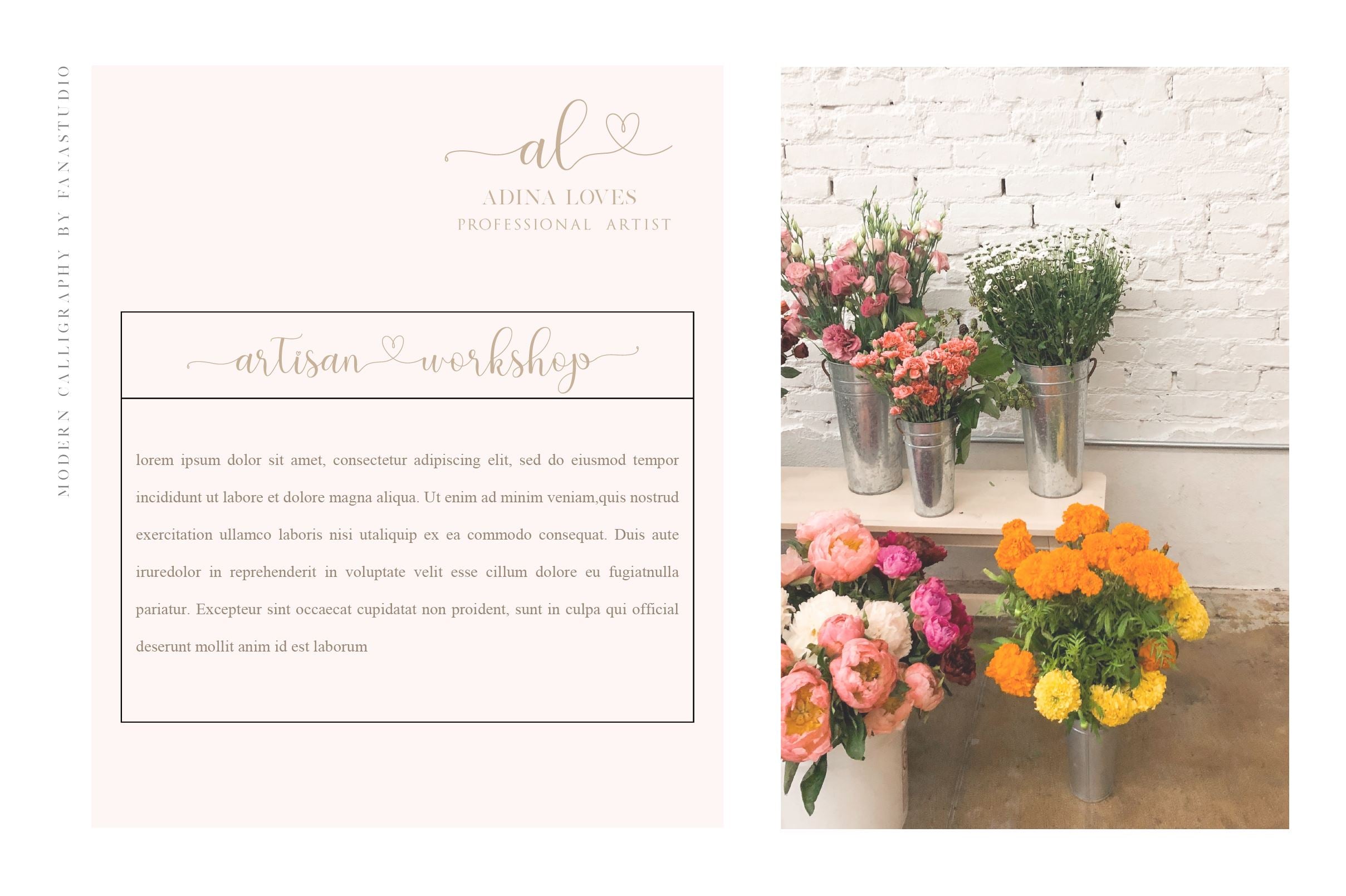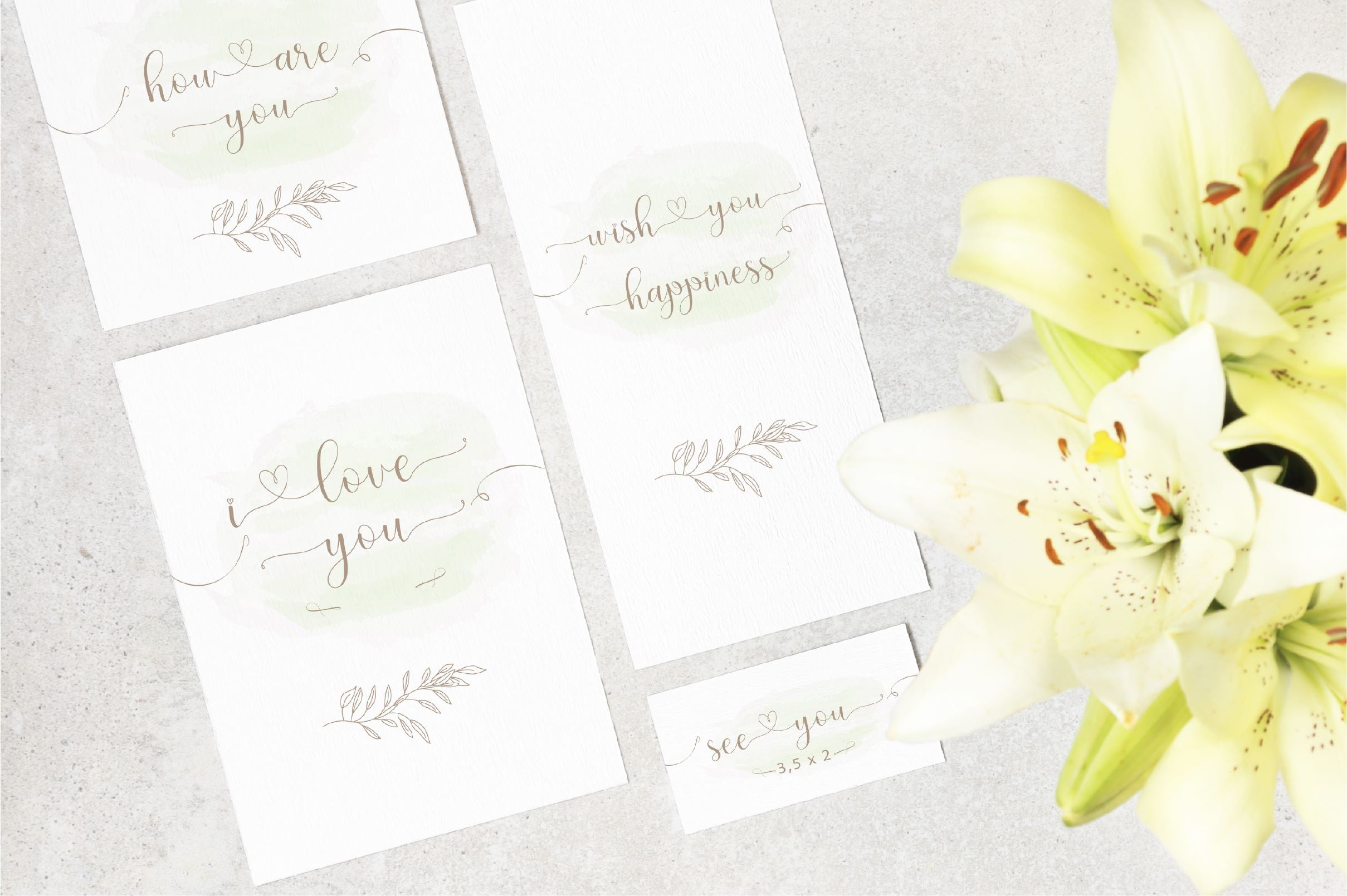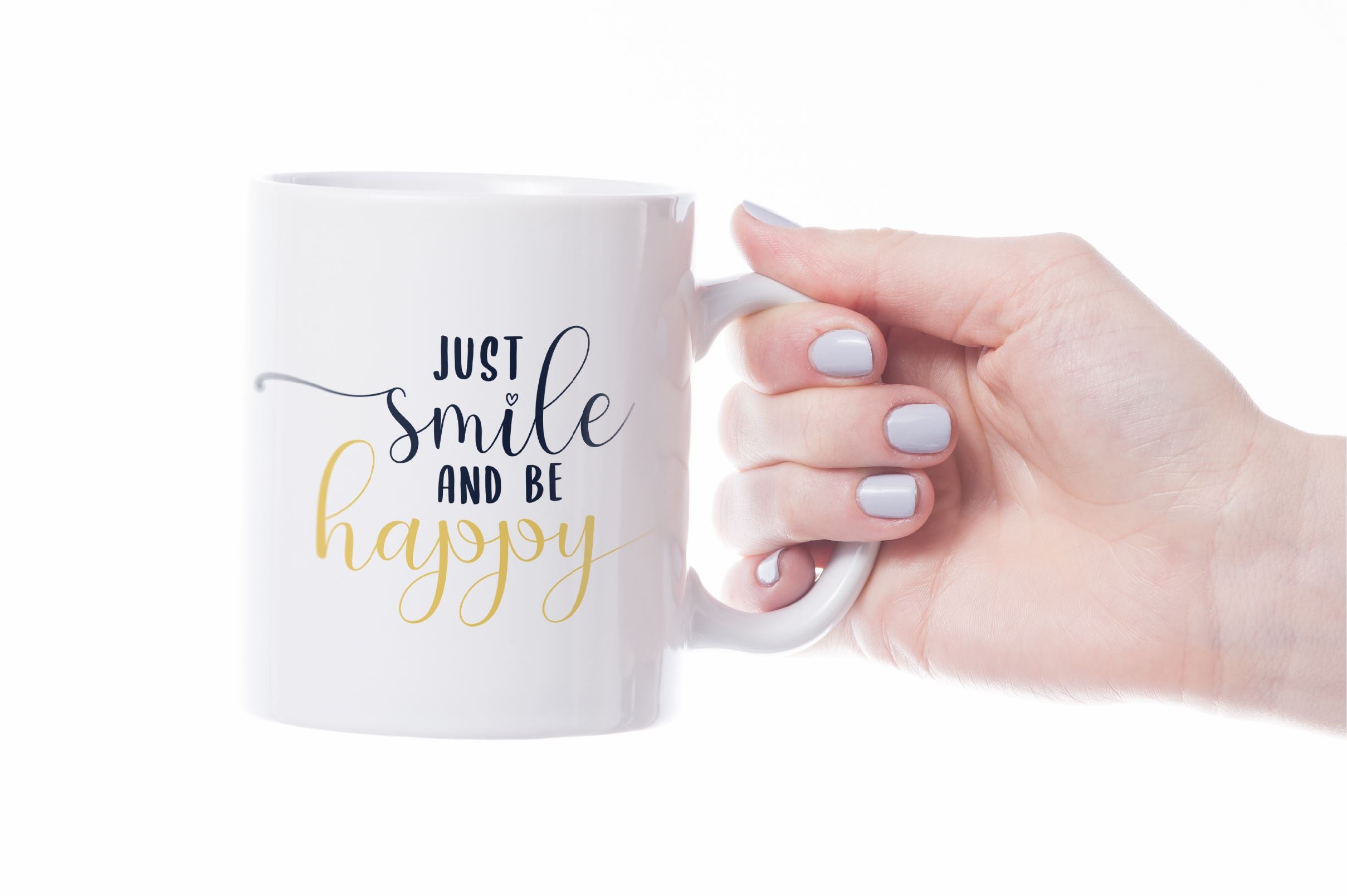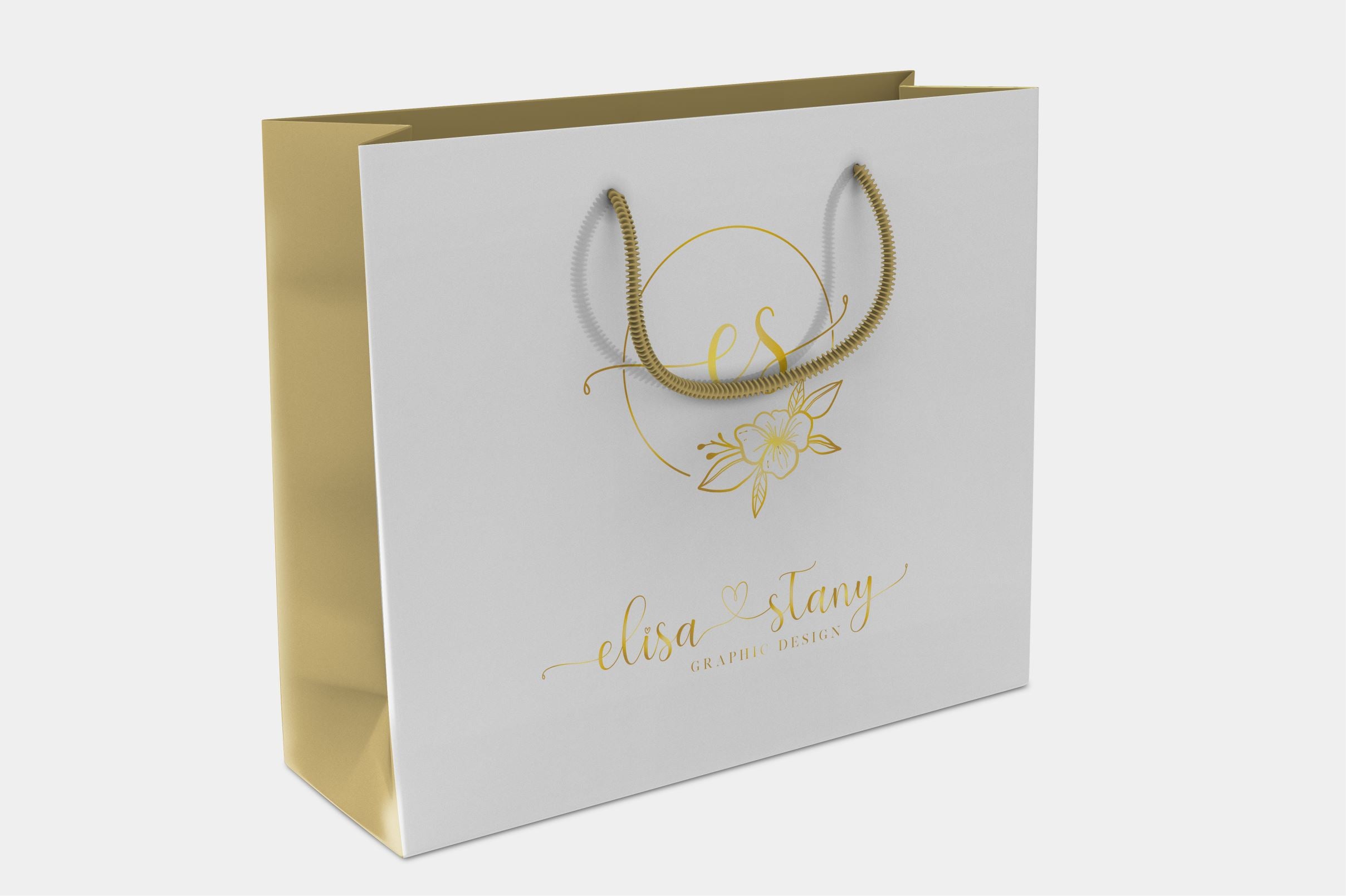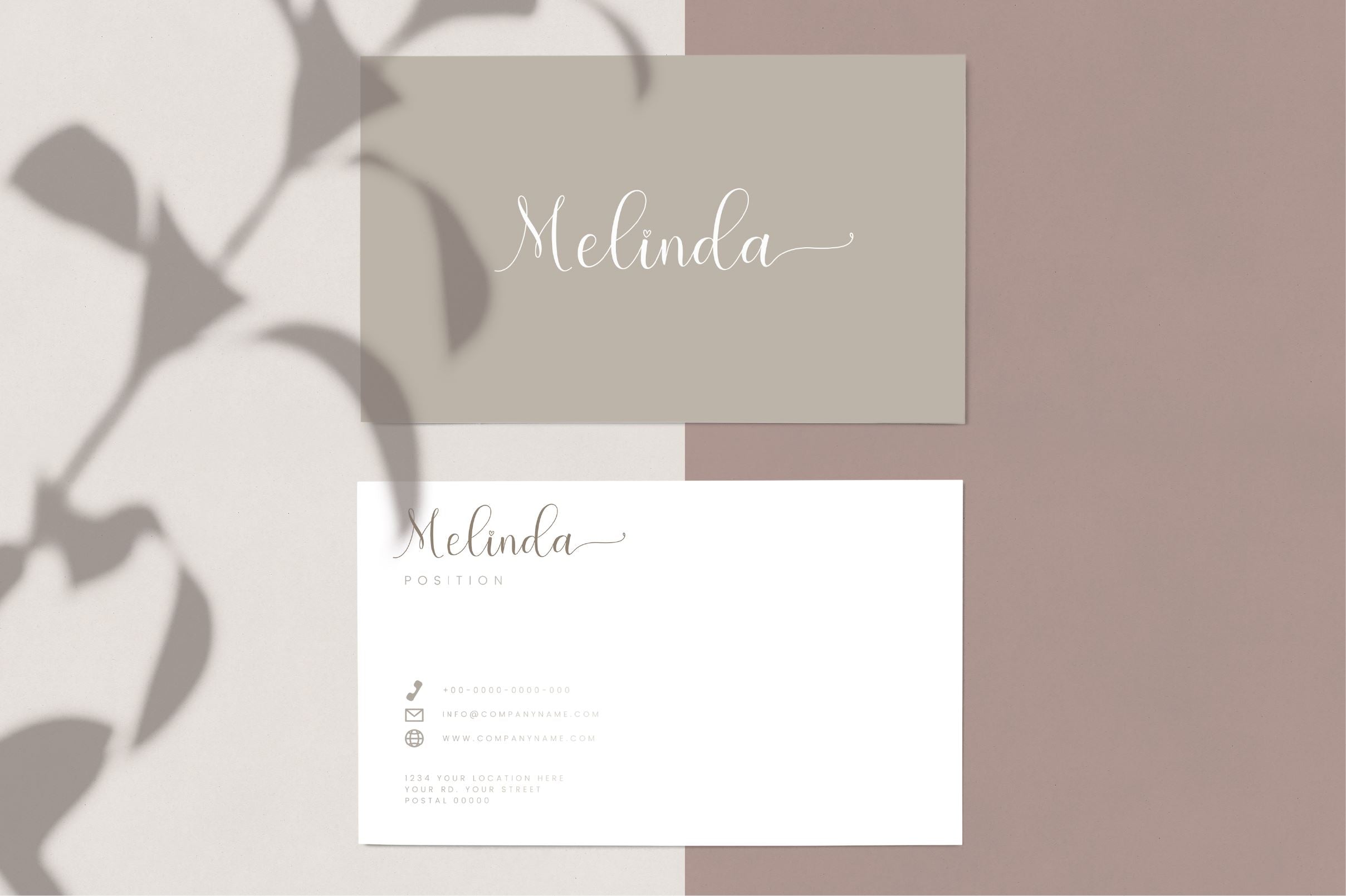
About hello olive – love fonts
The \”hello olive\” is a stylish feminine font. It includes amazing swashes which will add a feminine touch to your designs. What’s Included : hello olive OTF hello olive TTF Numeral and Punctuation 44 Swashes International Language Works on PC & Mac Simple installations Accessible in the Adobe Illustrator, Adobe Photoshop, Adobe InDesign, even works on Microsoft Word. Thank you for your purchase! Hope you enjoy with our font!